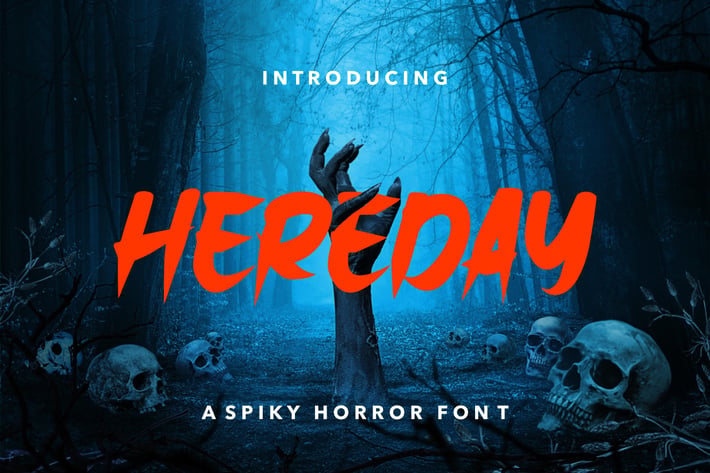
Hereday Horror Font
Hereday a Spiky Horror Font, This font is made with a high premium quality level which you can use as flyers, quotes, posters, banners, packaging, merchandise, logotypes and much more.